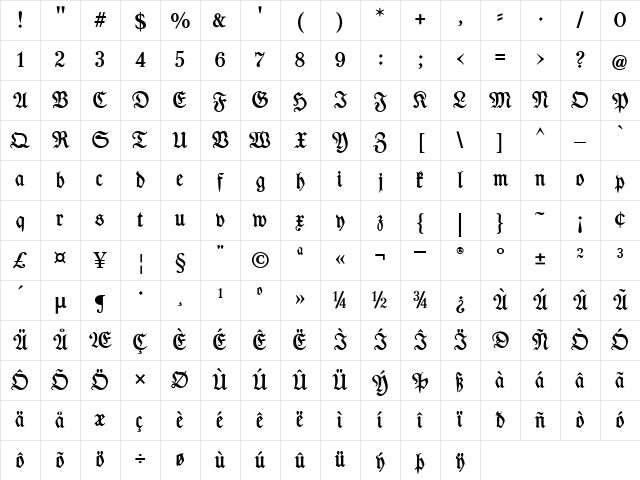
Des Malers Fraktur Regular
Foundry: Peter Wiegel
Designer: Peter Wiegel
Design Context for Des Malers Fraktur
Des Malers Fraktur draws on the rich tradition of blackletter calligraphy, with dense, angular strokes that evoke medieval manuscripts and old-world craftsmanship.
Font Pairing: Pair with a clean neutral sans-serif for body copy to let Des Malers Fraktur's character lead without overwhelming the composition.
Pro Tip: Reserve Des Malers Fraktur for display and logo use - pair it with a clean sans-serif for body copy to prevent the composition from feeling oppressive.